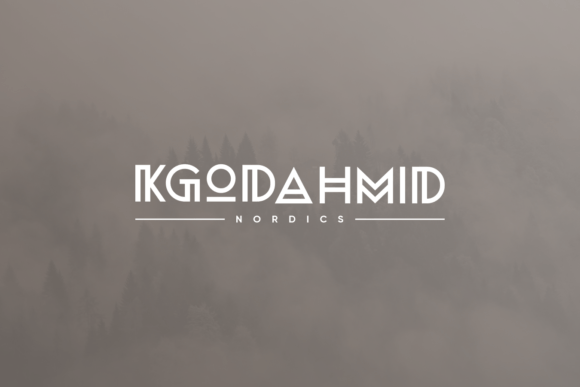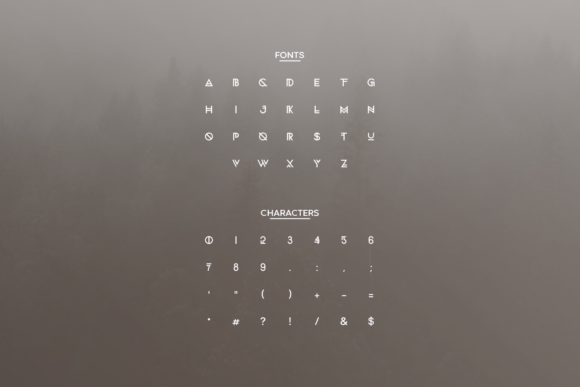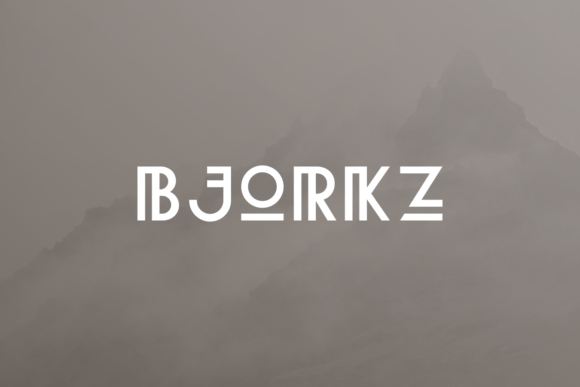
Introduction to Jegbod Font
Jegbod is a cool, tribal-style display font with a unique look.
Key Features of Jegbod Font
Why Choose Jegbod Font?
Jegbod Font offers exceptional quality and versatility, making it a valuable addition to your design toolkit. Whether you’re creating for personal projects or commercial use, Jegbod Font delivers professional results.